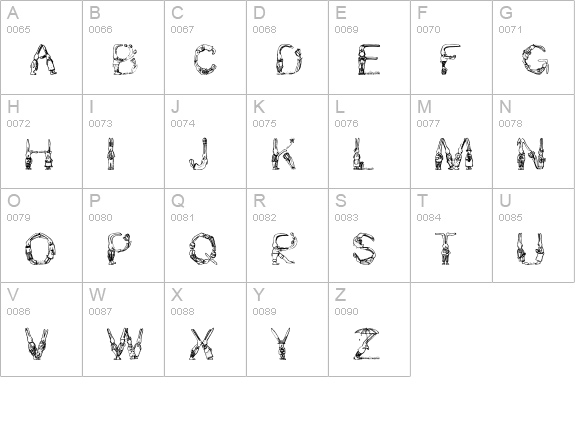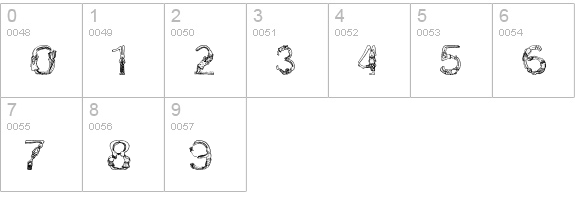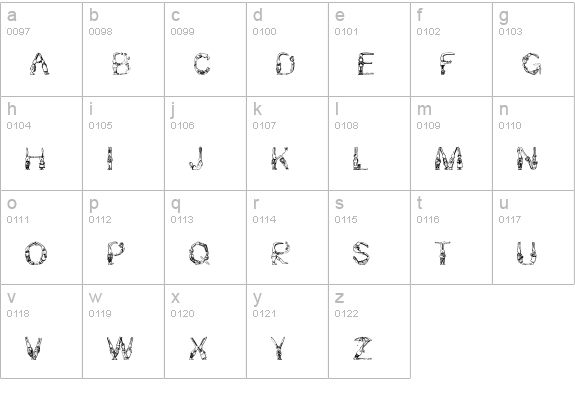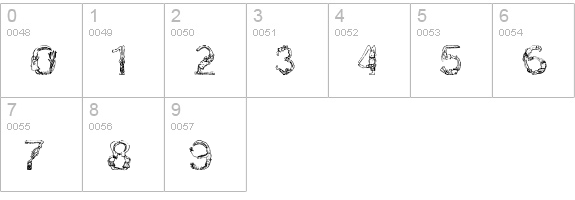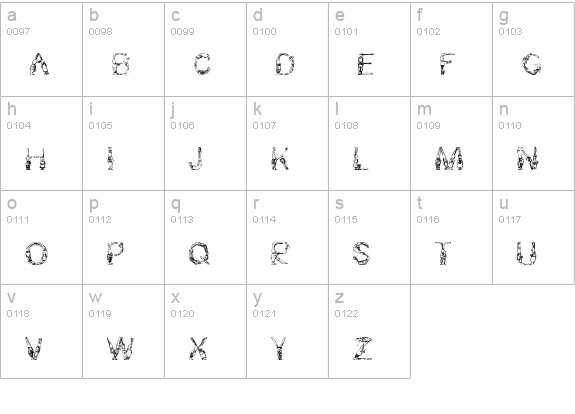
Bunny Rabbits Font Details
Introducing Bunny Rabbits font, a whimsical and charming typeface perfect for adding a touch of playfulness to your designs. With its adorable bunny-themed elements and delicate curves, Bunny Rabbits font is sure to bring a smile to anyone's face. This fun and versatile font is ideal for a wide range of projects, from children's books and invitations to branding and packaging. Best of all, Bunny Rabbits font is available for free download at FontsMarket.com. Whether you're a designer looking to add a touch of cuteness to your work or simply love all things bunny-related, this delightful font is a must-have in your collection. Download Bunny Rabbits font today and let your creativity hop to new heights!